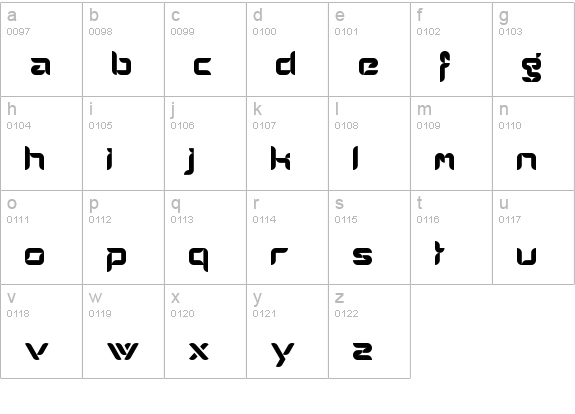
AlphaMaleModern Font Details
Introducing AlphaMaleModern, a sleek and sophisticated font that exudes confidence and modernity. With its bold lines and sharp angles, AlphaMaleModern is the perfect choice for making a strong statement in your designs. This versatile font is ideal for branding, logos, headlines, and more. Best of all, AlphaMaleModern is completely free to download at FontsMarket.com. Whether you're a designer looking to add a touch of sophistication to your projects or a business owner wanting to make a bold impression, AlphaMaleModern has you covered. Download this impressive font today and elevate your designs to the next level.